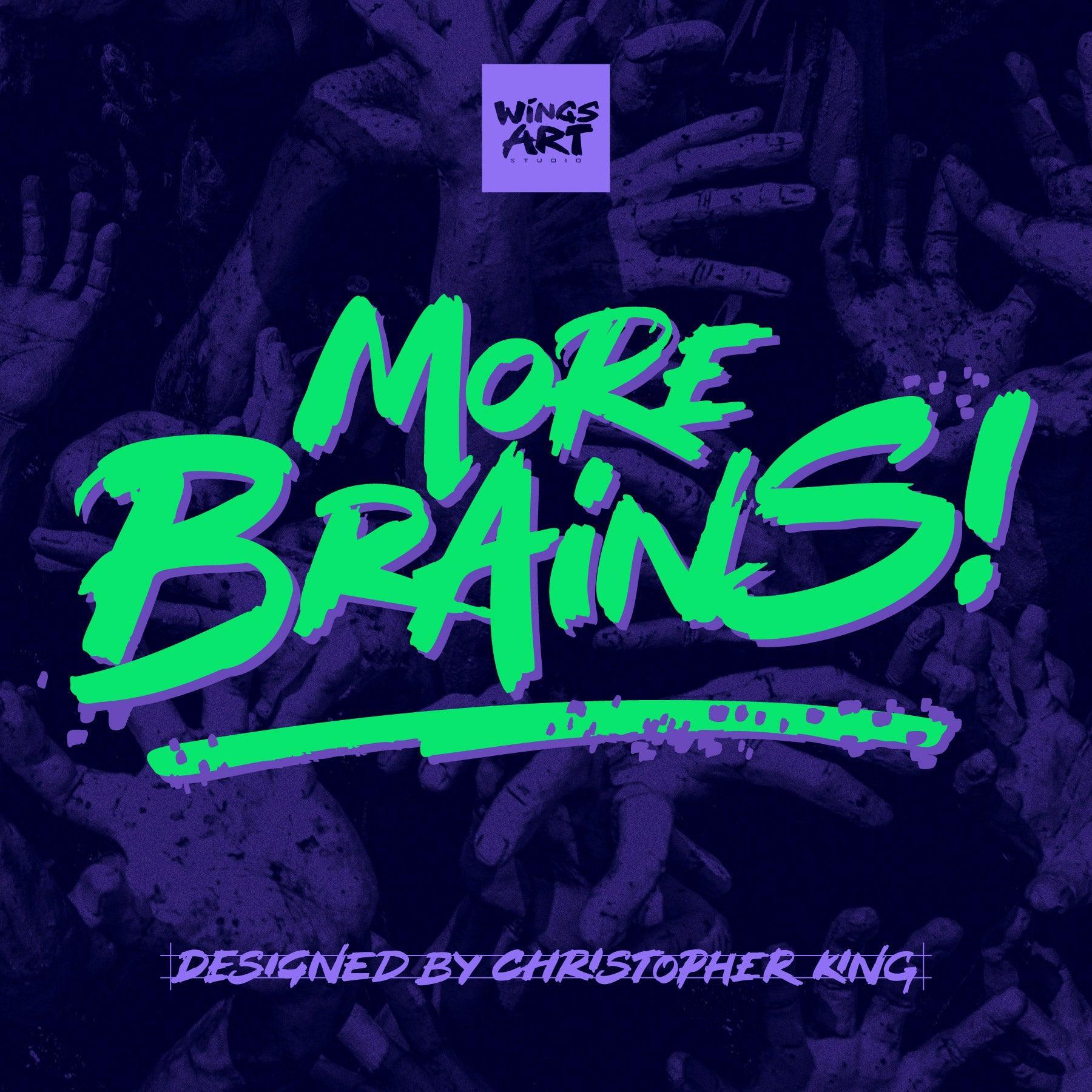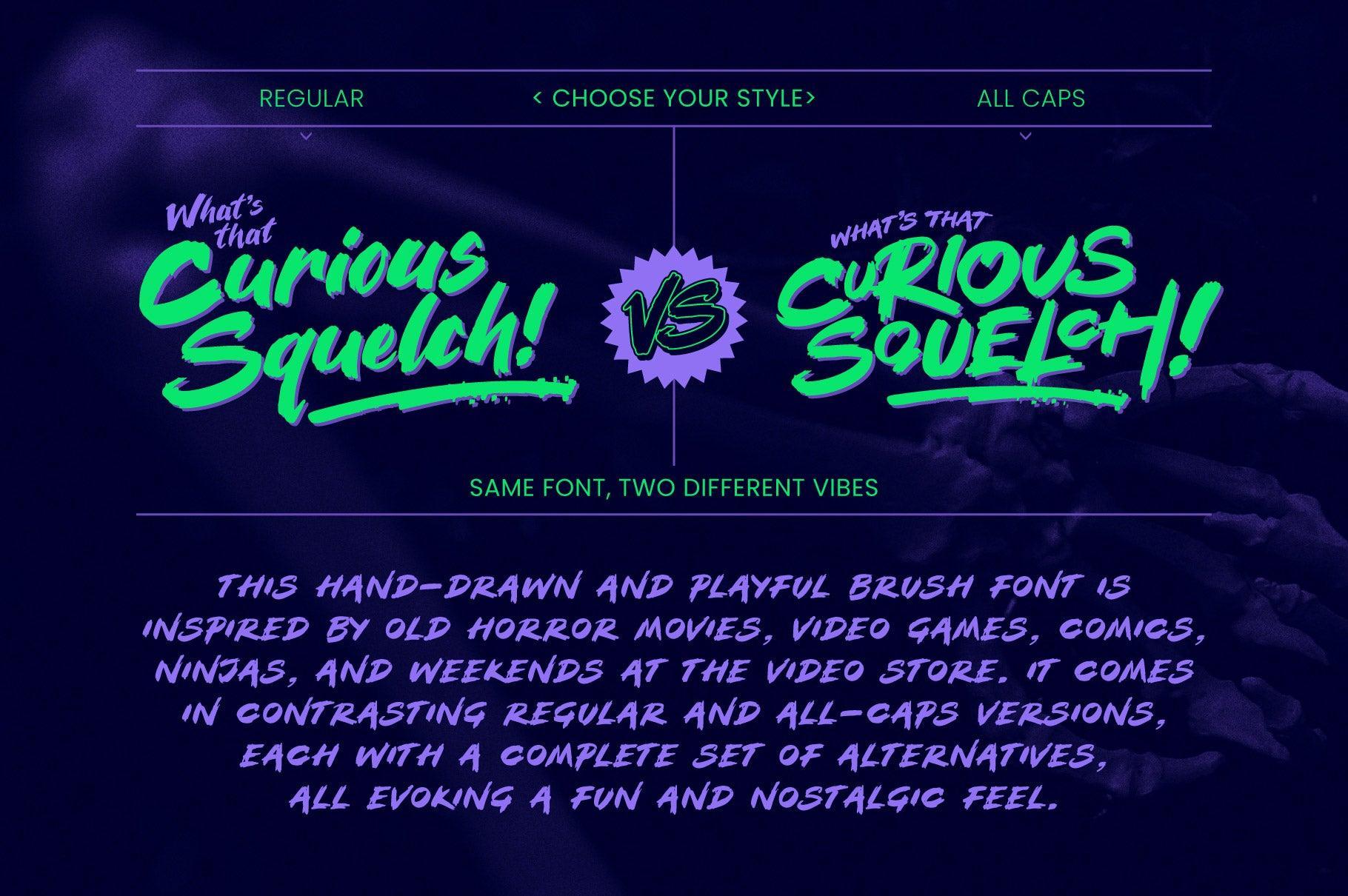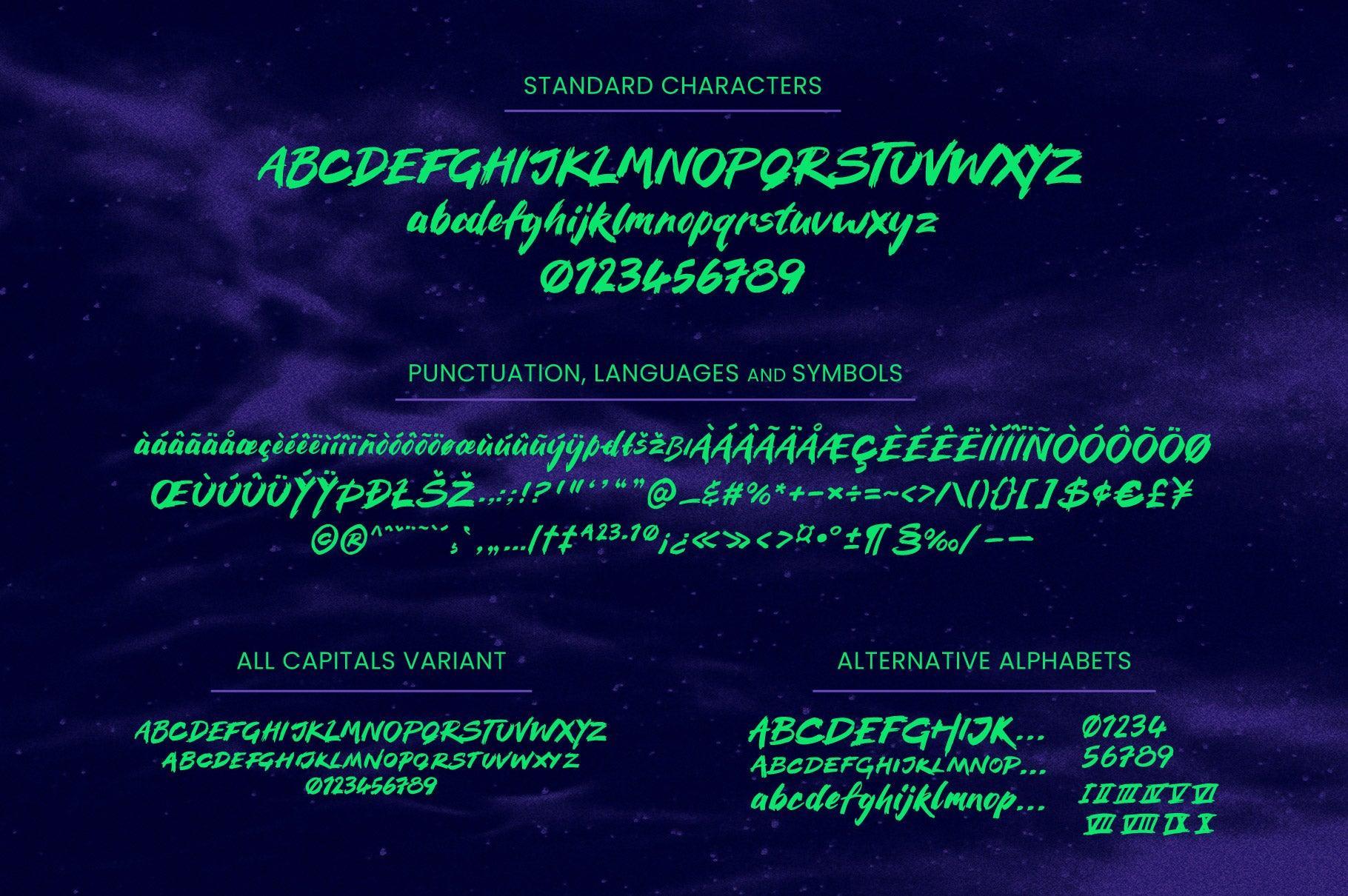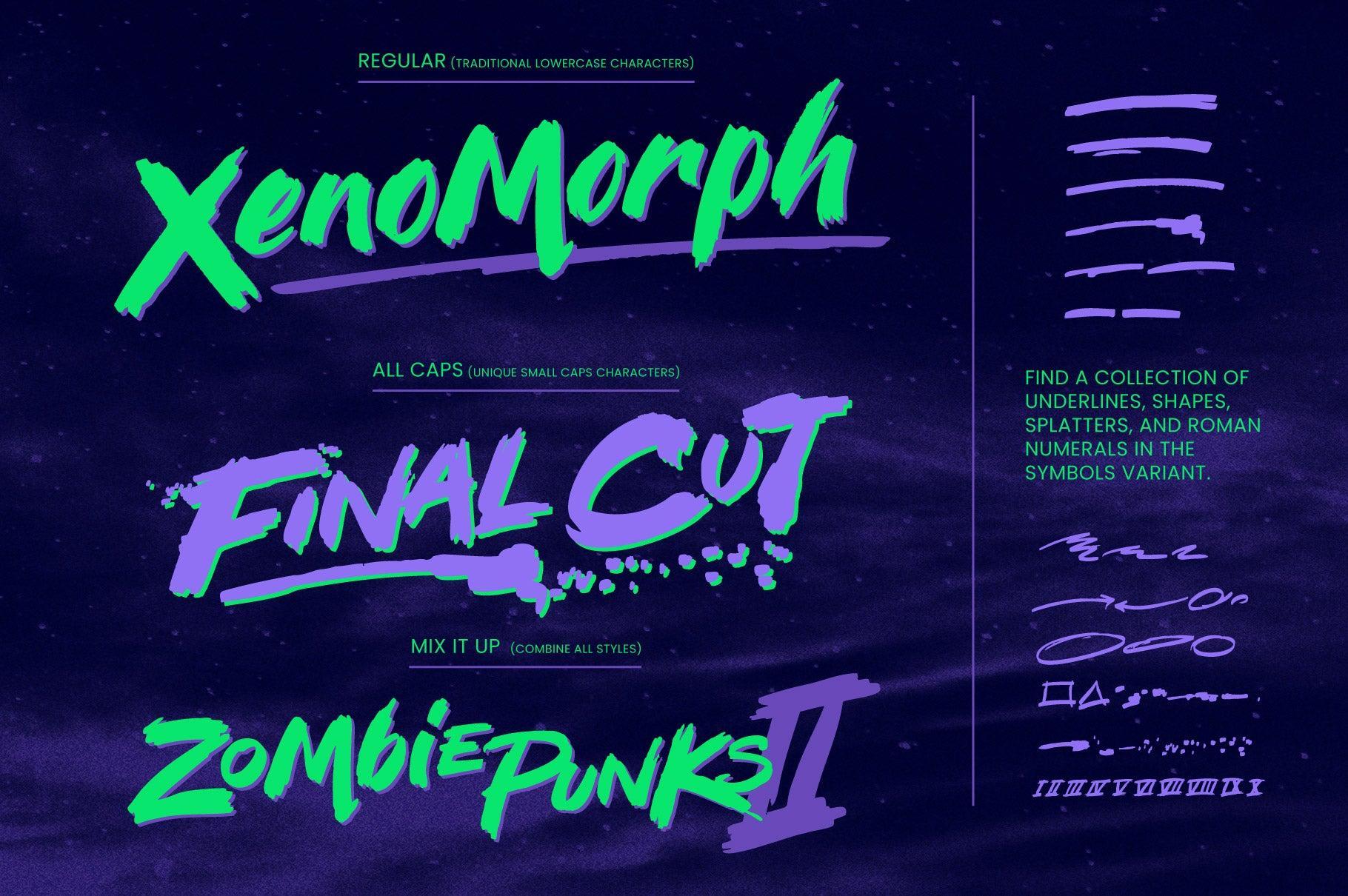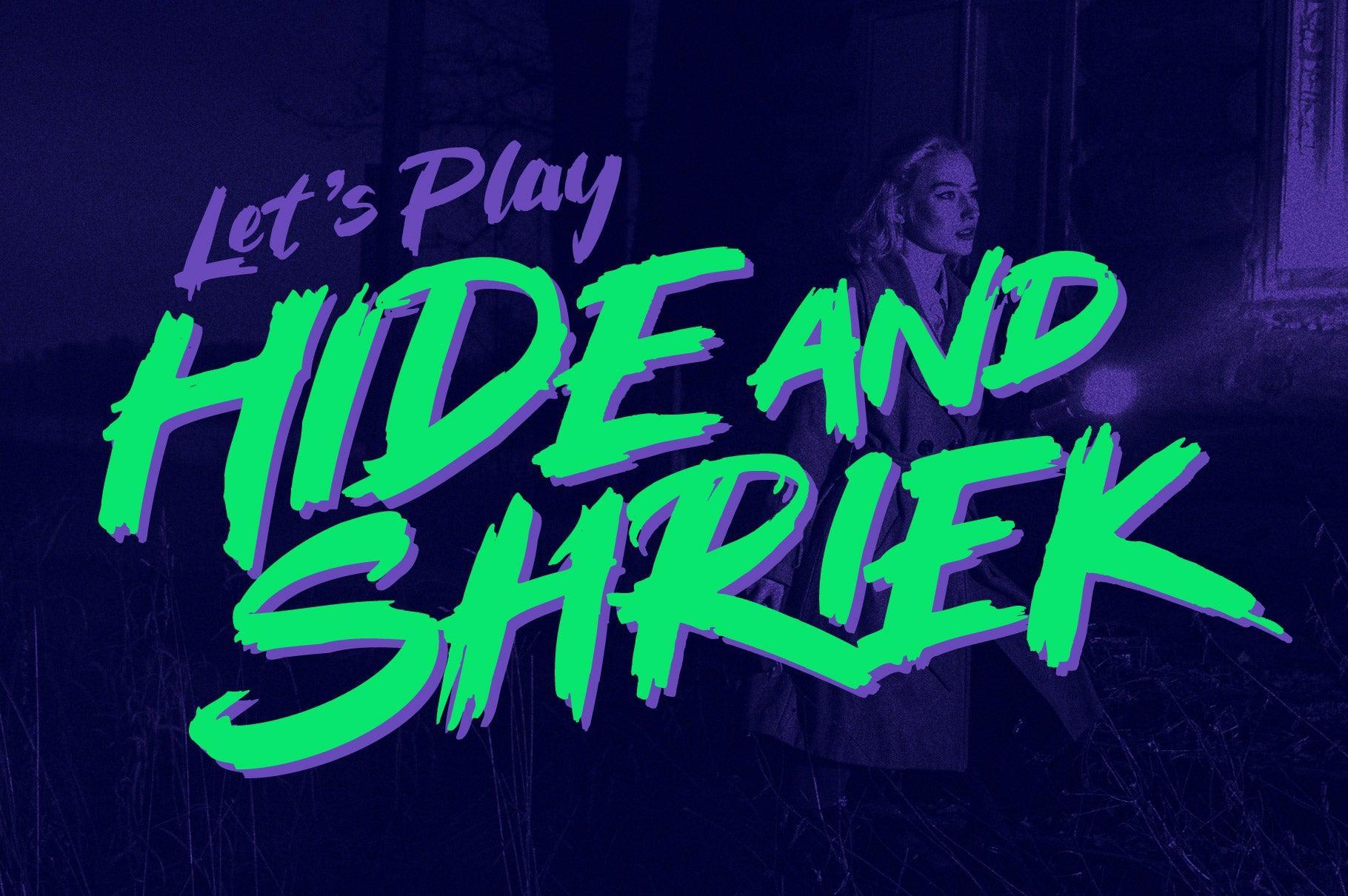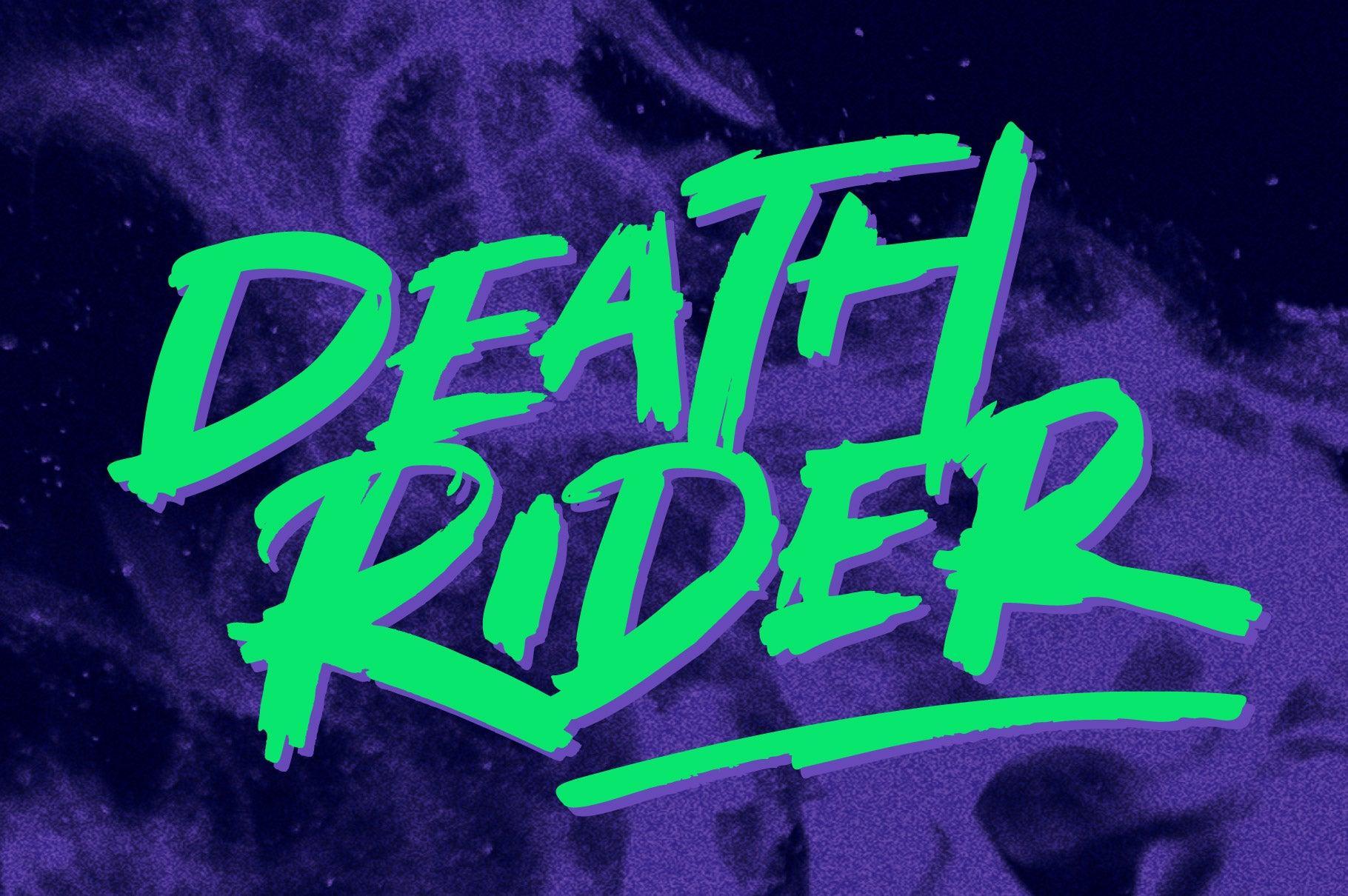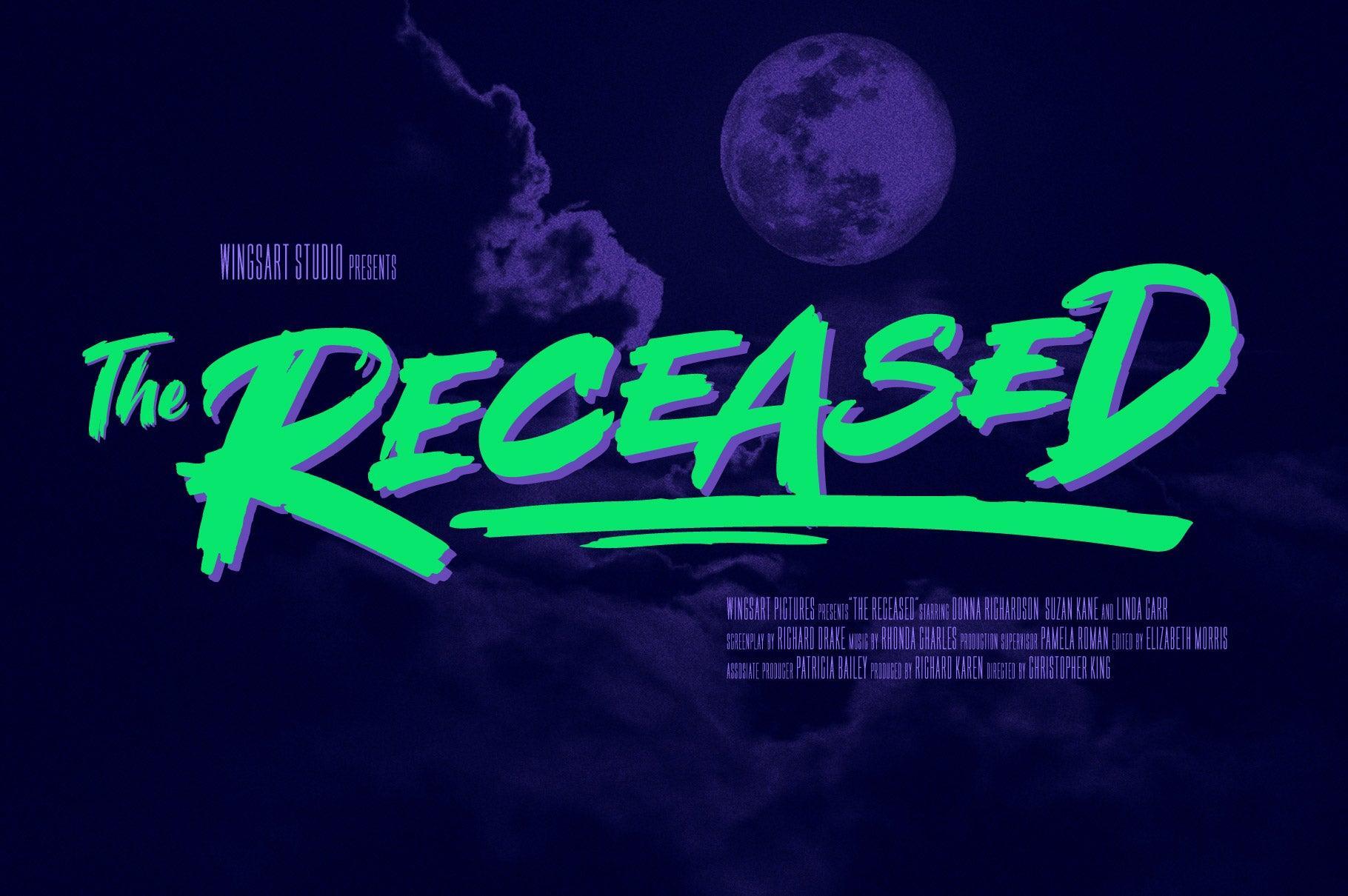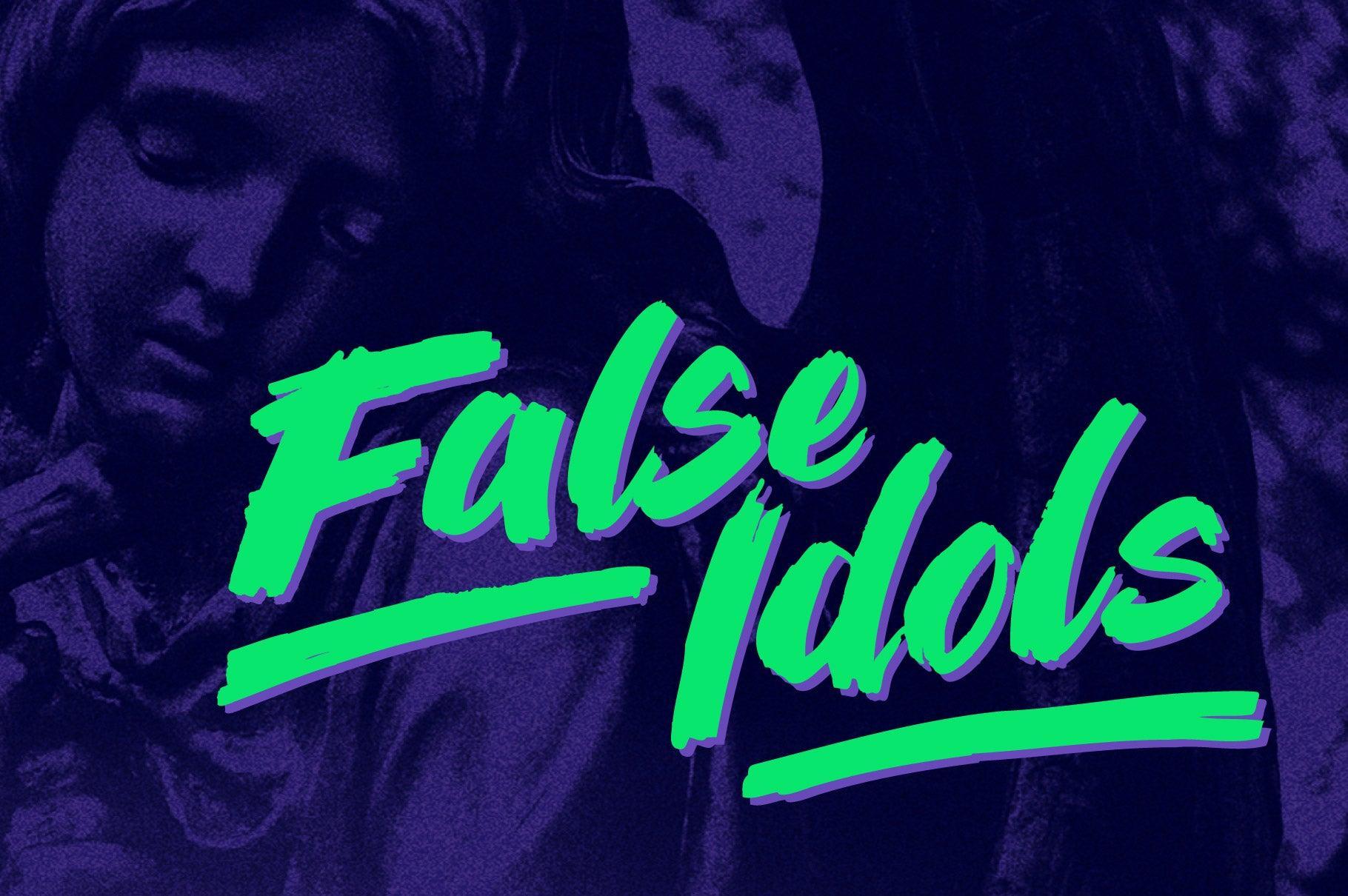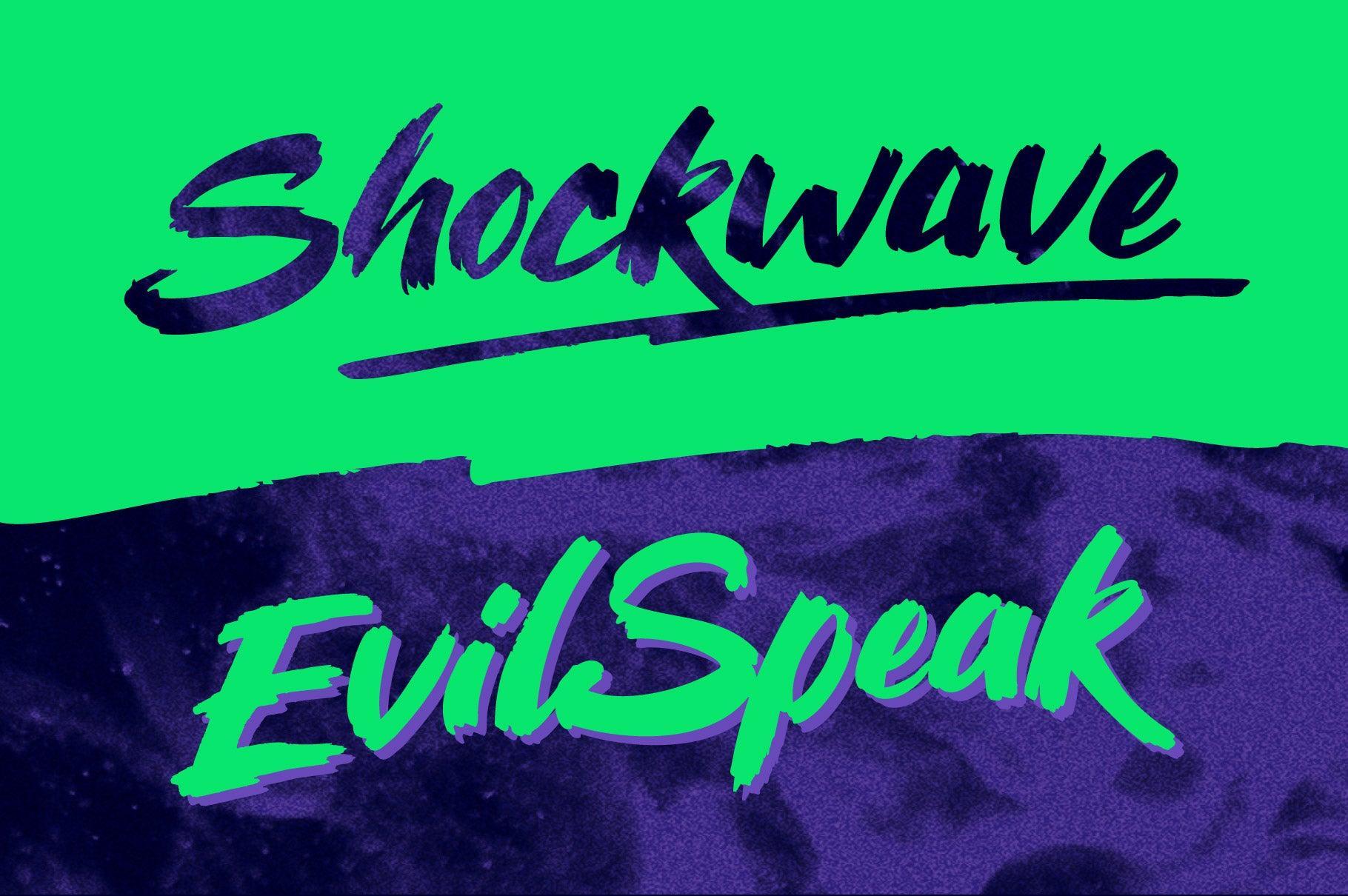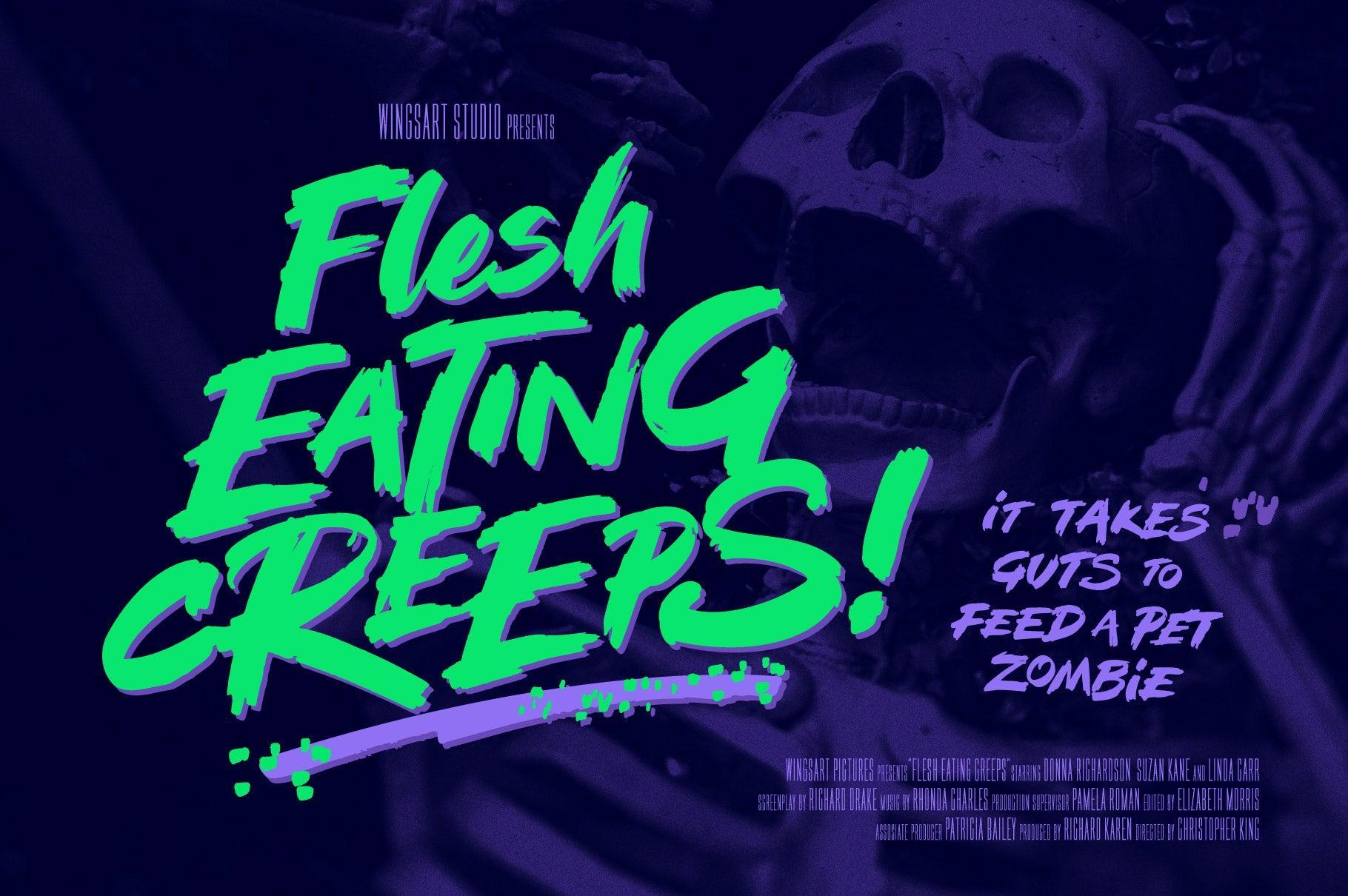
More Brains! Retro 80s VHS Horror Font
More Brains! is a playful, hand-drawn horror font inspired by 80s VHS aesthetics, featuring both regular and all-caps styles with complete sets of alternatives. It includes uppercase and lowercase characters, numerals, multilingual support, symbols, and is available in OTF, TTF, and WOFF formats.